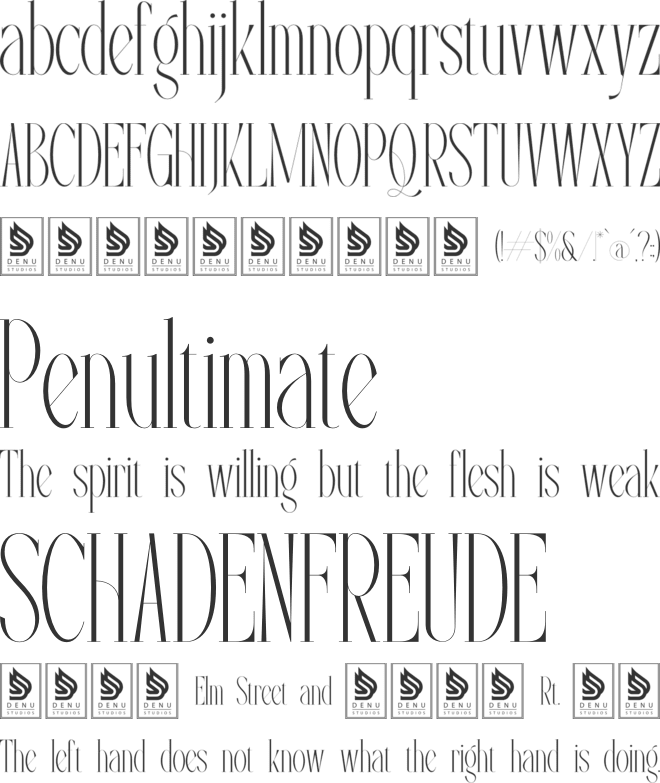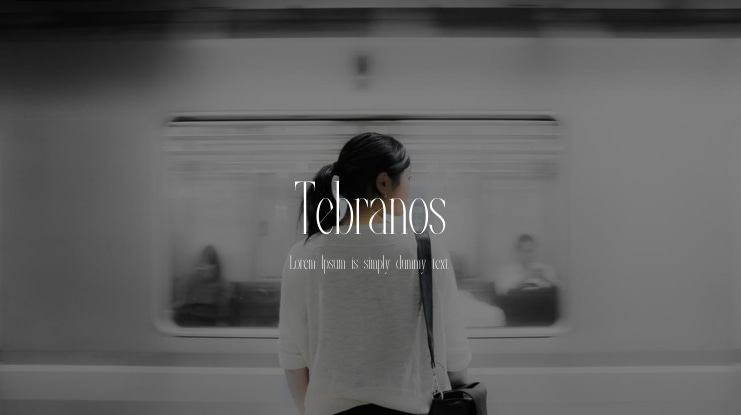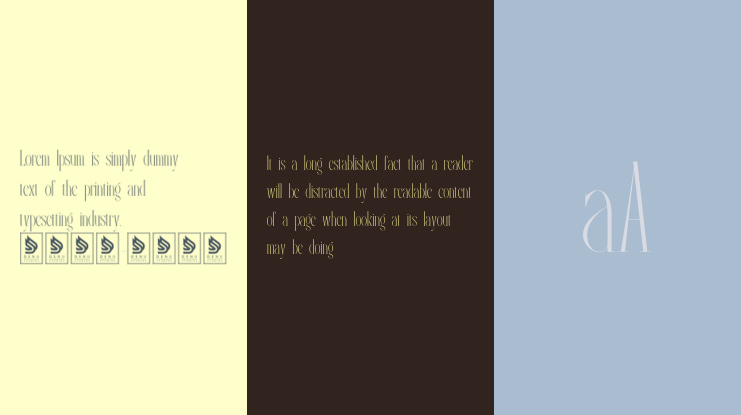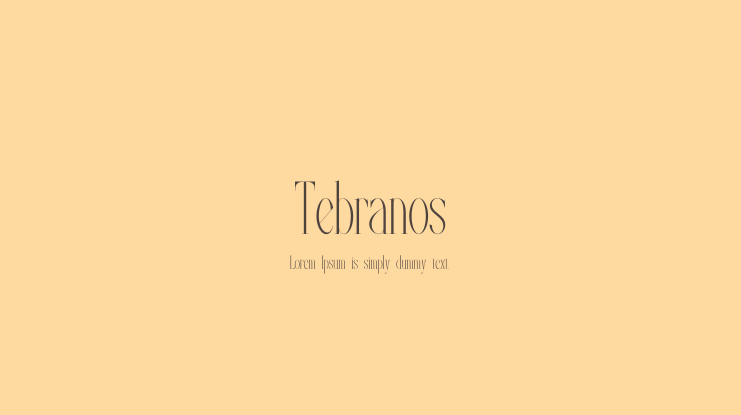
Tebranos | Modern Display Serif is suitable for any projects such as: logos, branding projects, homeware designs, product packaging, mugs, quotes, posters, shopping bags, t-shirts, book covers, name card, invitation cards, greeting cards, label, photography, watermark, special events, and all your other lovely projects that need a Modern Display Serif taste.